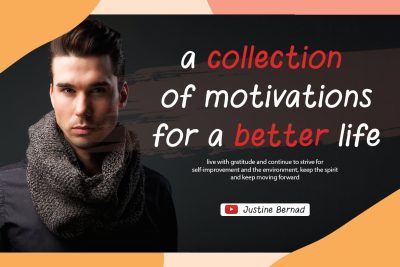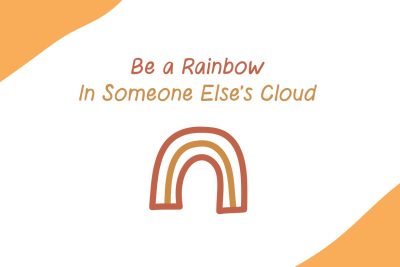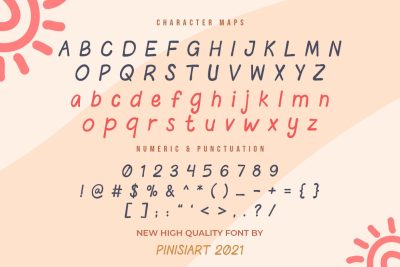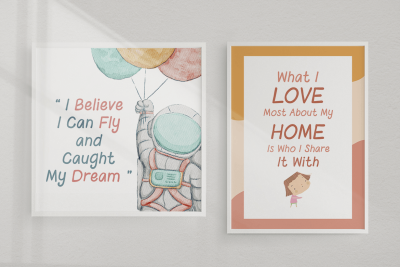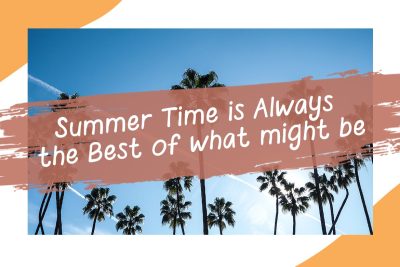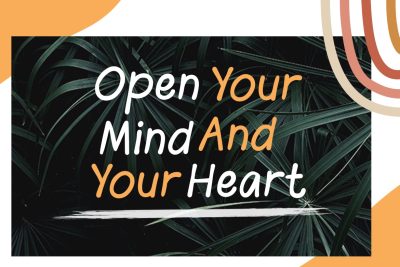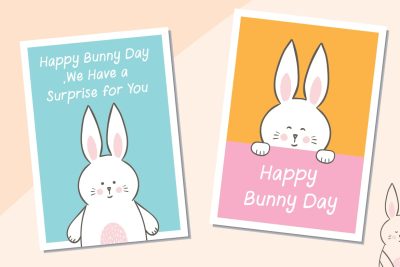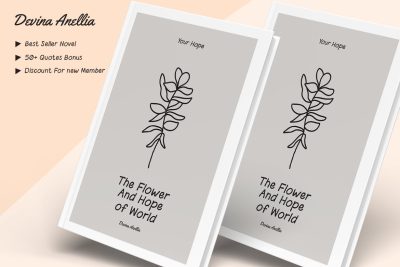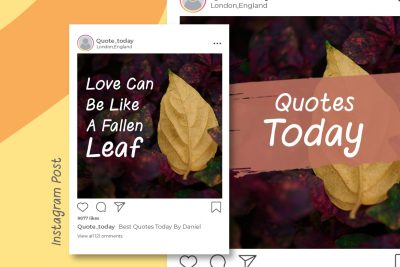
Teen Poem
Cute Font Teen Poem is a charming, handwritten typeface that blends playfulness with elegance. It brings a youthful charm and warmth to any project, making it perfect for adding a touch of personality. With smooth curves and rounded characters, this font creates a friendly and inviting look that suits many creative uses. Its handcrafted feel appeals to those who want an informal but polished style. The balanced strokes ensure both clarity and style, making it a versatile choice for anyone seeking a fun, readable font. Overall, Cute Font Teen Poem embodies innocence and approachability, ideal for themes focused on creativity and authenticity.
This font’s easy-to-read design works beautifully for projects that need a soft, personal tone. It’s ideal for blogs, social media, or invitations, adding a playful edge that draws readers in. Its rounded features give it a nostalgic, handmade vibe, while its structure ensures readability in any size. From logos to merchandise, this font achieves the perfect balance of fun and professionalism, adapting well to both digital and print mediums. Whether you’re designing a cozy online shop or crafting heartfelt messages, this font brings warmth and friendliness.
Cute Font Teen Poem Suitable For
This font is an excellent choice for anyone targeting a younger or casual audience. Cute Font Teen Poem suits graphic designers, illustrators, and content creators looking to add a friendly, whimsical touch to their work. It’s also ideal for educators and creators designing materials for children or teens, thanks to its engaging and relaxed style.
Small business owners in crafts, stationery, or eco-friendly brands will find this font a great match for their aesthetic. Bloggers, influencers, and social media managers can also benefit from its youthful, inviting appeal. Event planners and anyone designing casual invitations will appreciate its playful look, especially for family-friendly gatherings and celebrations. This font makes each message feel personal and welcoming, perfect for events with a warm, down-to-earth atmosphere.
In the publishing world, especially for children’s books, this font is a natural choice to capture young readers’ attention. It’s well-suited for book covers, chapter headings, and other design elements where warmth and playfulness are desired. Whether you’re targeting a market interested in DIY projects, lifestyle branding, or simply seeking a personal touch, Cute Font Teen Poem communicates messages with lightness and charm. For designers focused on authenticity, this font offers a unique blend of style and approachability, helping each project stand out while staying inviting and relatable.
The teenager is the time when all about feeling. We can all express our inner thought in simple sentences and proudly hang them on the wall as a poster. This Teen Poem is what we all need, the simplicity, the readability, is just perfect.